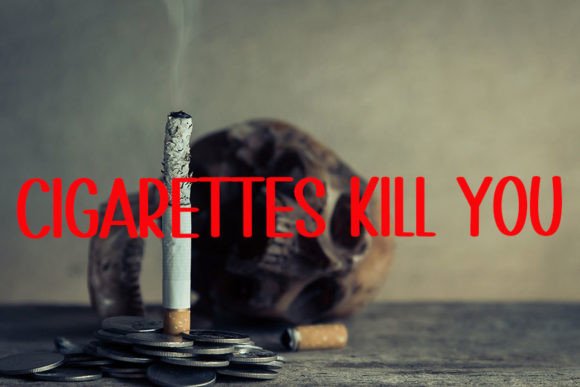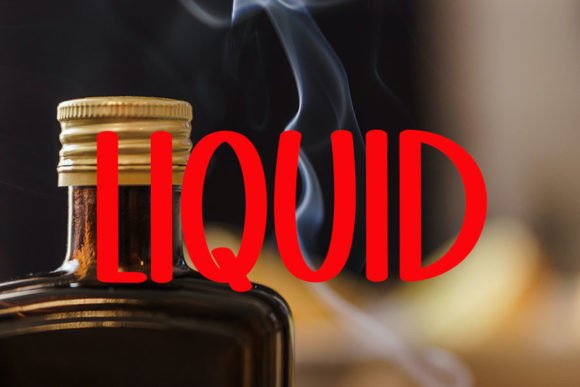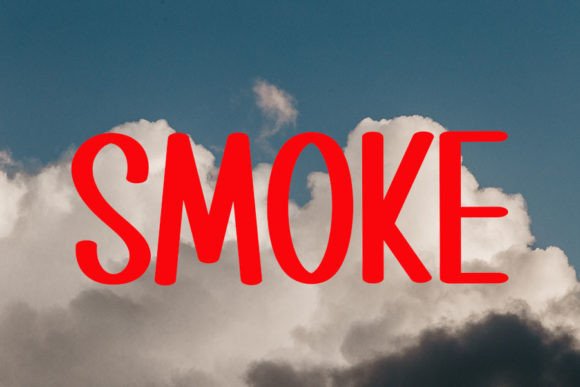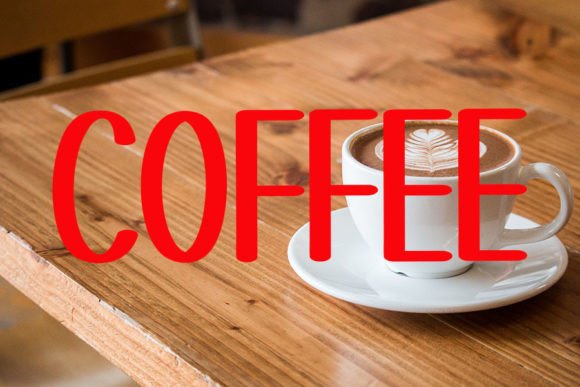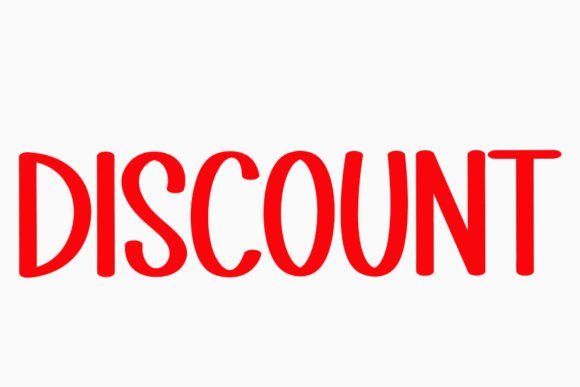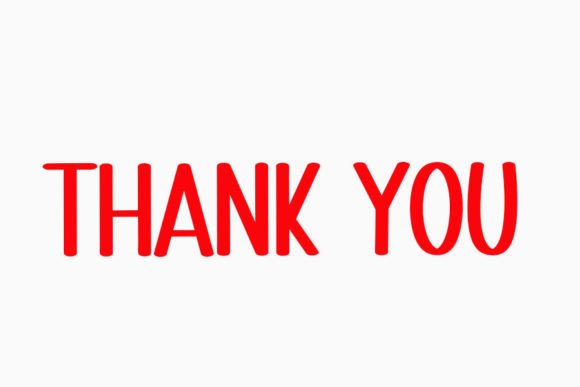
Introduction to No Smoking Font
As a designer, have you ever found yourself in a rush to meet a deadline, yet struggling to find the perfect font for your creative project? The frustration is real, but it doesn’t have to be. Sometimes, all it takes is a little discovery to elevate your design game. Enter the No Smoking Font, a beautiful handwritten font that’s about to become your new best friend.
With its casual touch and incredibly distinct style, the No Smoking Font is perfect for designers who crave a high-quality, one-of-a-kind design resource. Whether you’re working on a free download project or a commercial design, this font is sure to impress. Its transparent background makes it easy to layer with other design elements, giving you endless creative possibilities. So, what are you waiting for? Let’s dive into the world of the No Smoking Font and see how it can take your designs to the next level.
Key Features of No Smoking Font
- High-quality design: The No Smoking Font is a well-crafted, professional-looking font perfect for creative projects.
- Transparent background: The font features a transparent background, allowing for easy integration with various design elements.
- Unique characteristics: The font features a distinctive, hand-drawn style with a bold and modern look, making it ideal for projects that require a creative touch.
Honest Review: No Smoking Font
I recently stumbled upon the No Smoking Font, a creative project designed to grab attention and spread awareness about the dangers of smoking. As a designer, I appreciate high-quality resources that can elevate a project and make it more impactful.
One thing that works well about the No Smoking Font is its unique design. The font is bold, eye-catching, and immediately conveys the message. The transparent background also makes it easy to use in various design scenarios, from social media graphics to posters and flyers.
Some of the benefits of using the No Smoking Font include:
- High-quality design: The font is well-designed and professional-looking.
- Easy to use: The transparent background makes it simple to incorporate into your designs.
⚠️ Limited flexibility: The font is designed to be bold and eye-catching, which may not be suitable for all design projects. Additionally, the font may not be suitable for use in text-heavy designs.
Overall, I think the No Smoking Font is a great design resource for creative projects. While it may have some limitations, its unique design and transparent background make it a valuable addition to any designer’s toolkit.
No Smoking Font
Tips for Getting the Most Out of the No Smoking Font
For best results, use the font in conjunction with a high-quality image or graphic. You can also use the font in combination with other design elements to create a unique and eye-catching visual effect. Additionally, be sure to check the font’s licensing terms and conditions to ensure that you are using it in accordance with the law.
The No Smoking Font is commonly used in health-related projects, such as anti-smoking campaigns, health awareness posters, and medical brochures. It can also be used in educational projects, such as lesson plans and study guides, to create visually appealing and informative materials.